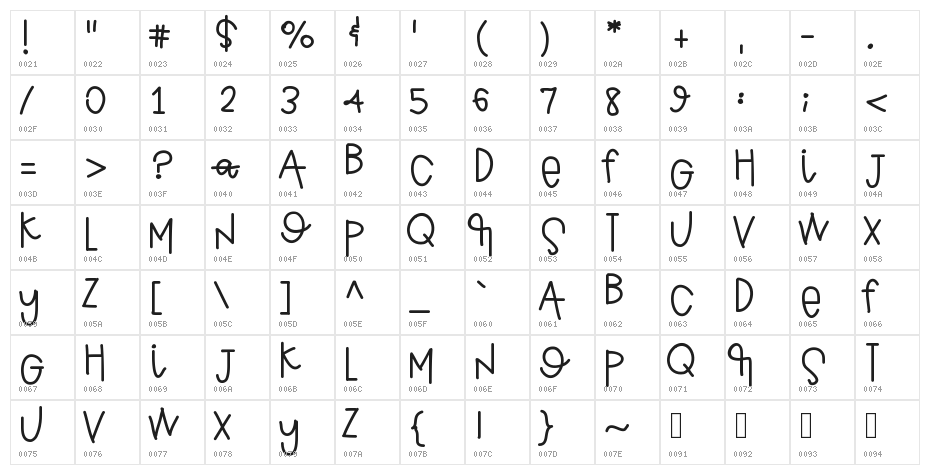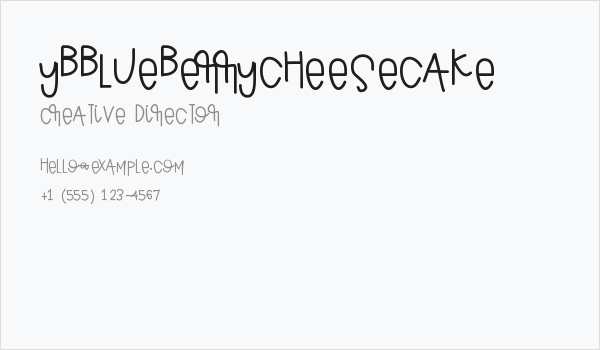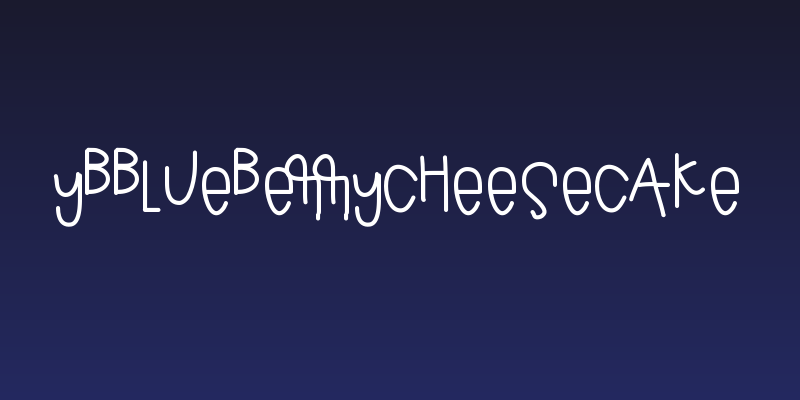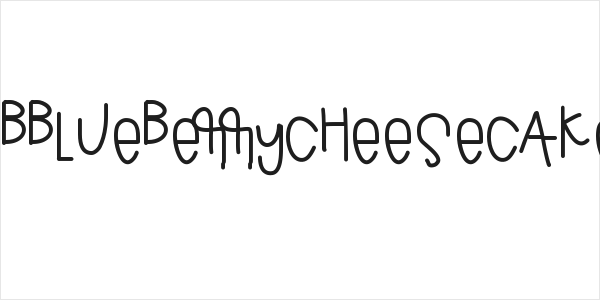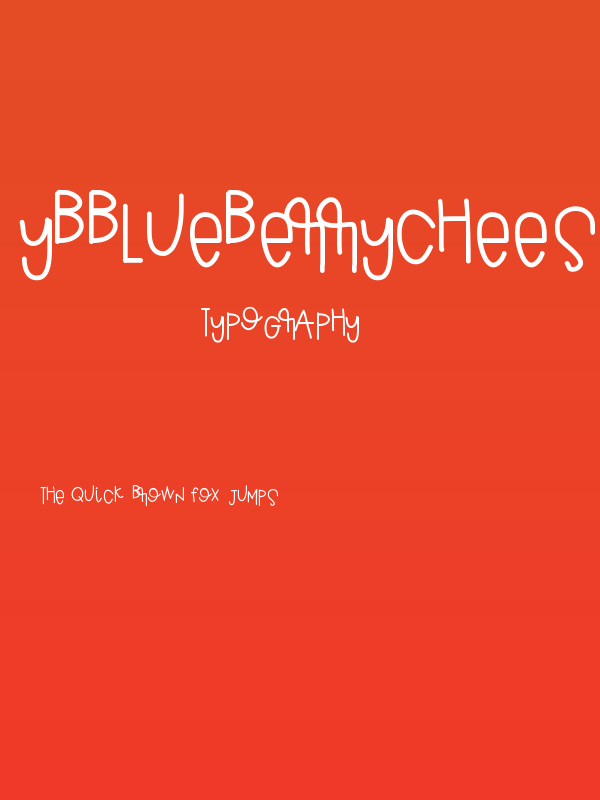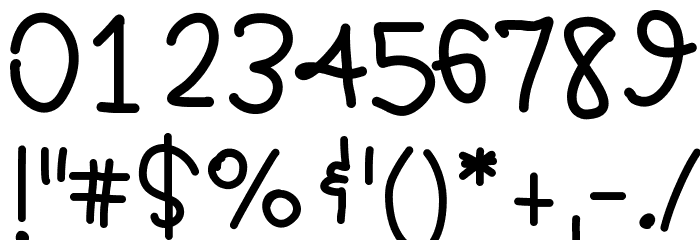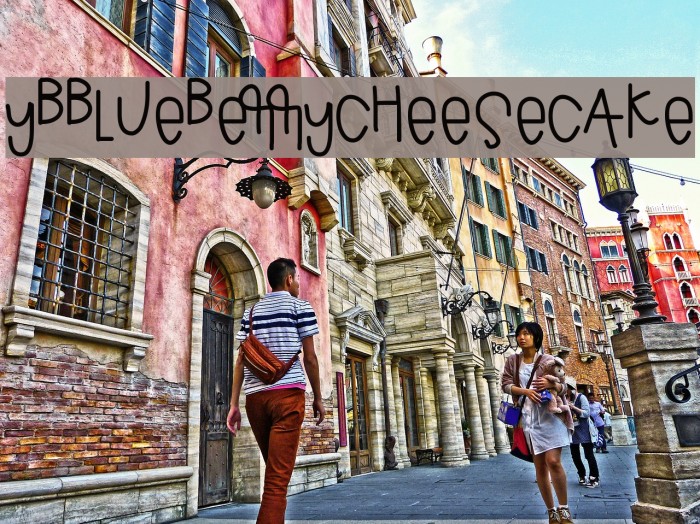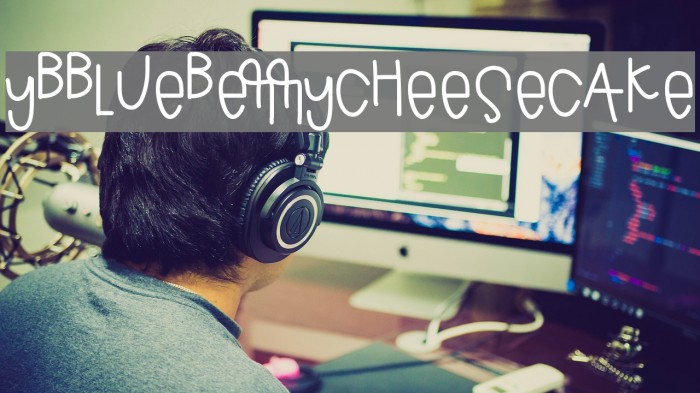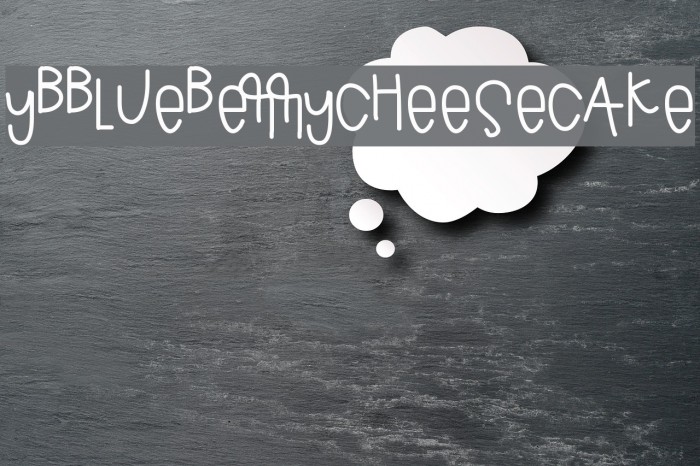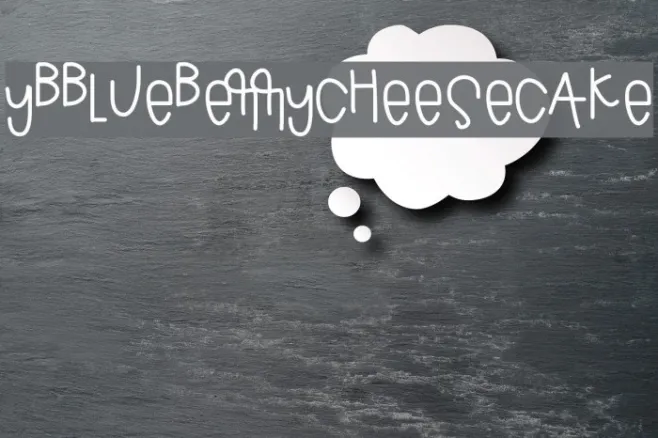
YBBlueberryCheesecake Font
YBBlueberryCheesecake Description
This playful and whimsical font features a handwritten style with a casual, friendly appearance. The characters are rounded and slightly irregular, giving them a charming, informal look. The uppercase and lowercase letters maintain a consistent style, with smooth curves and a relaxed flow. The numbers and special characters follow the same playful design, making the font versatile for various uses. Its unique personality makes it stand out, perfect for projects that require a touch of creativity and fun.